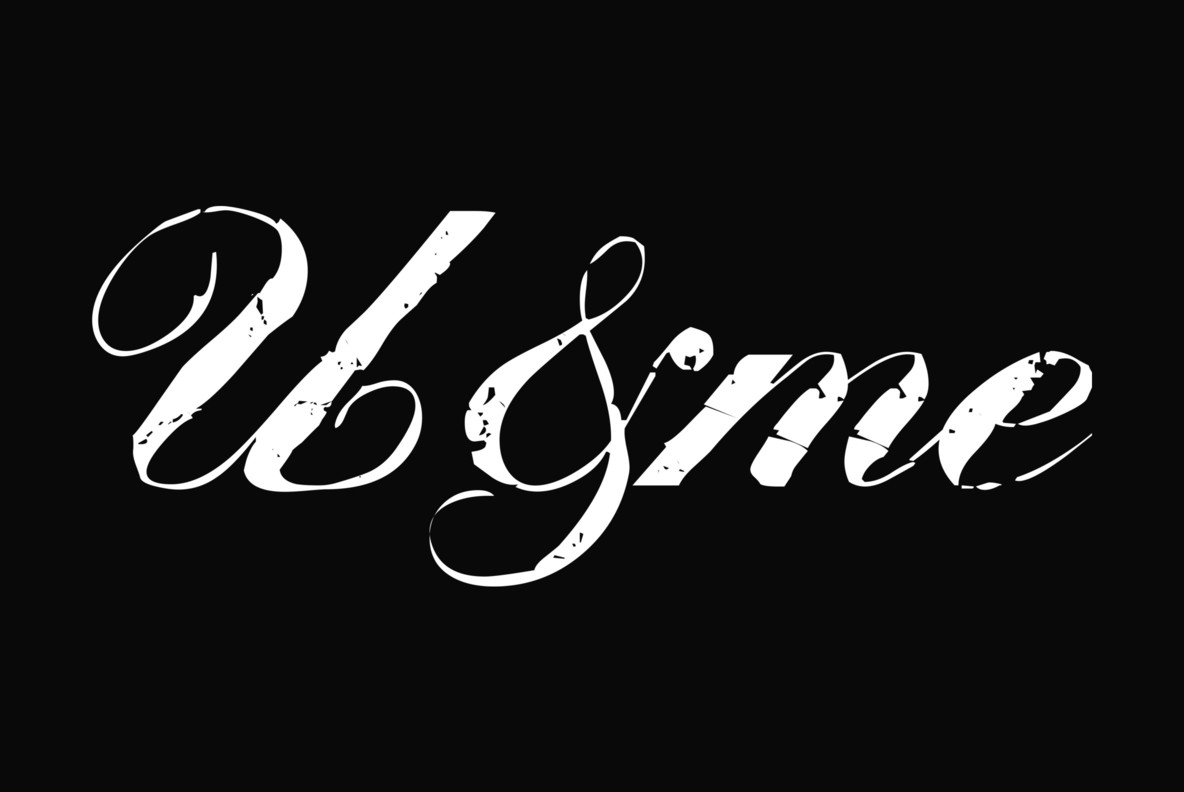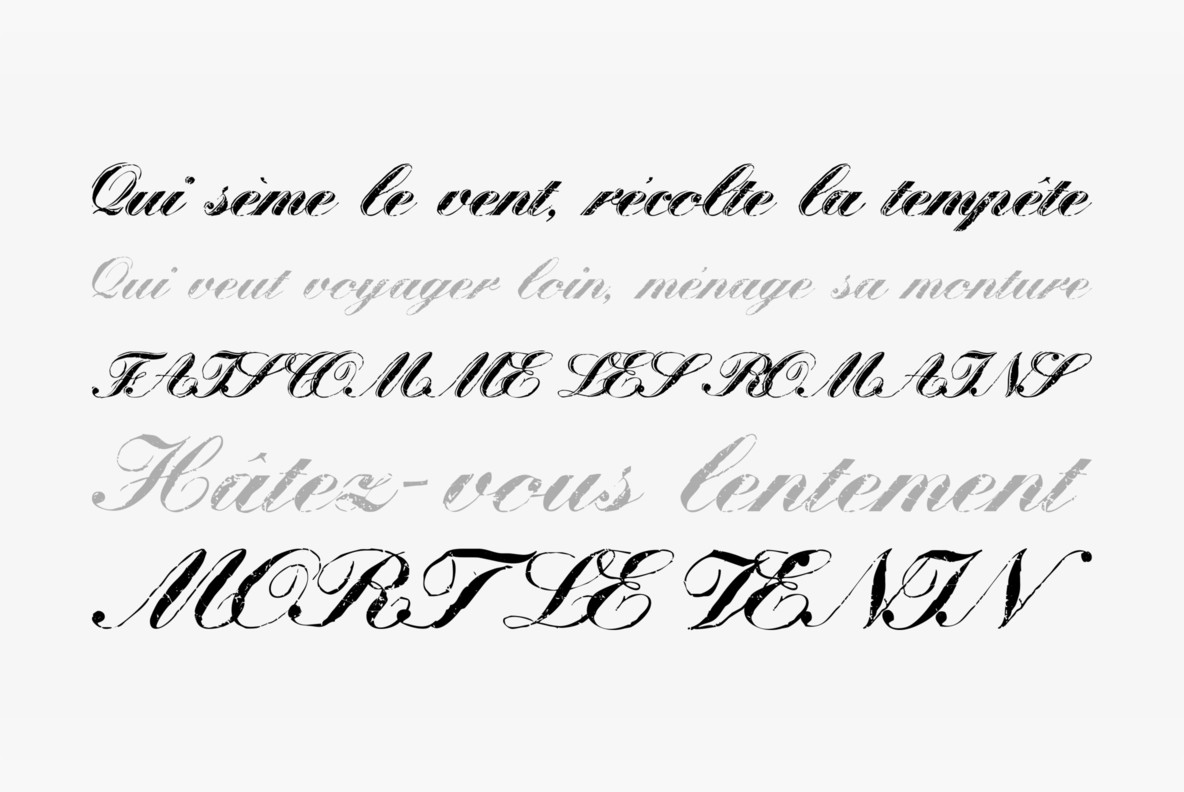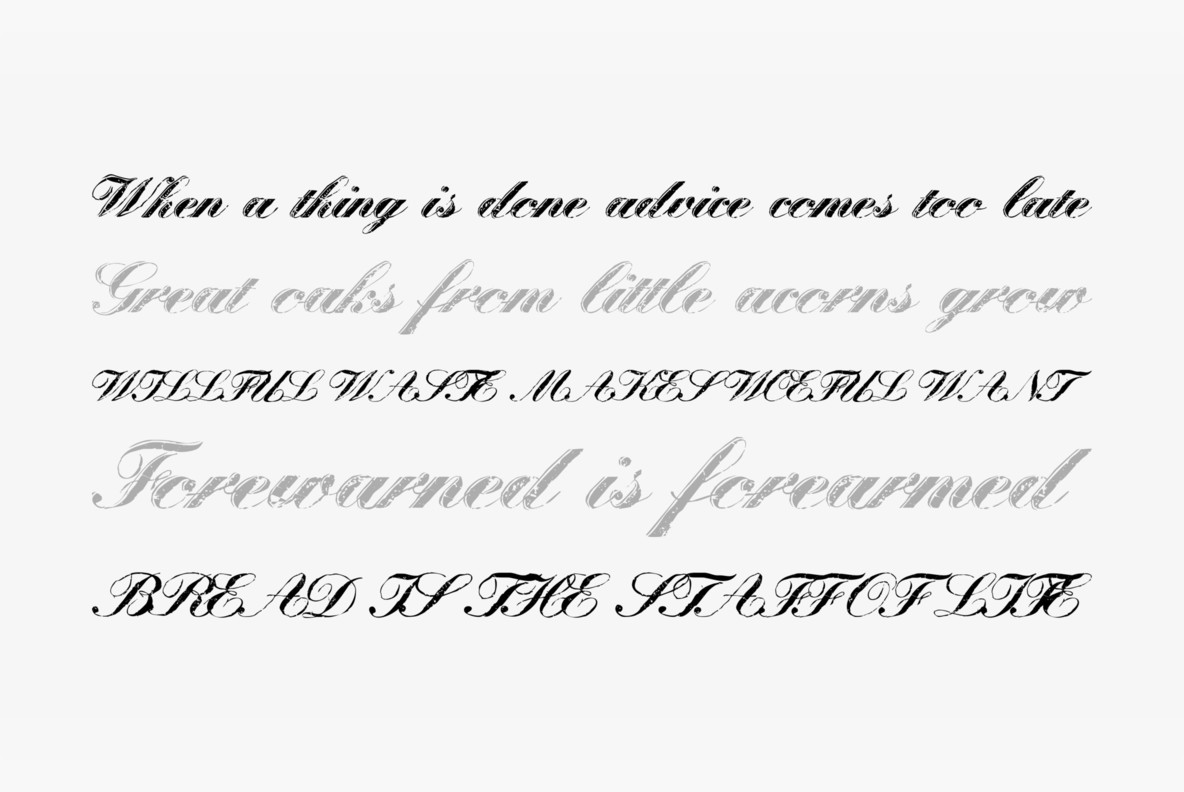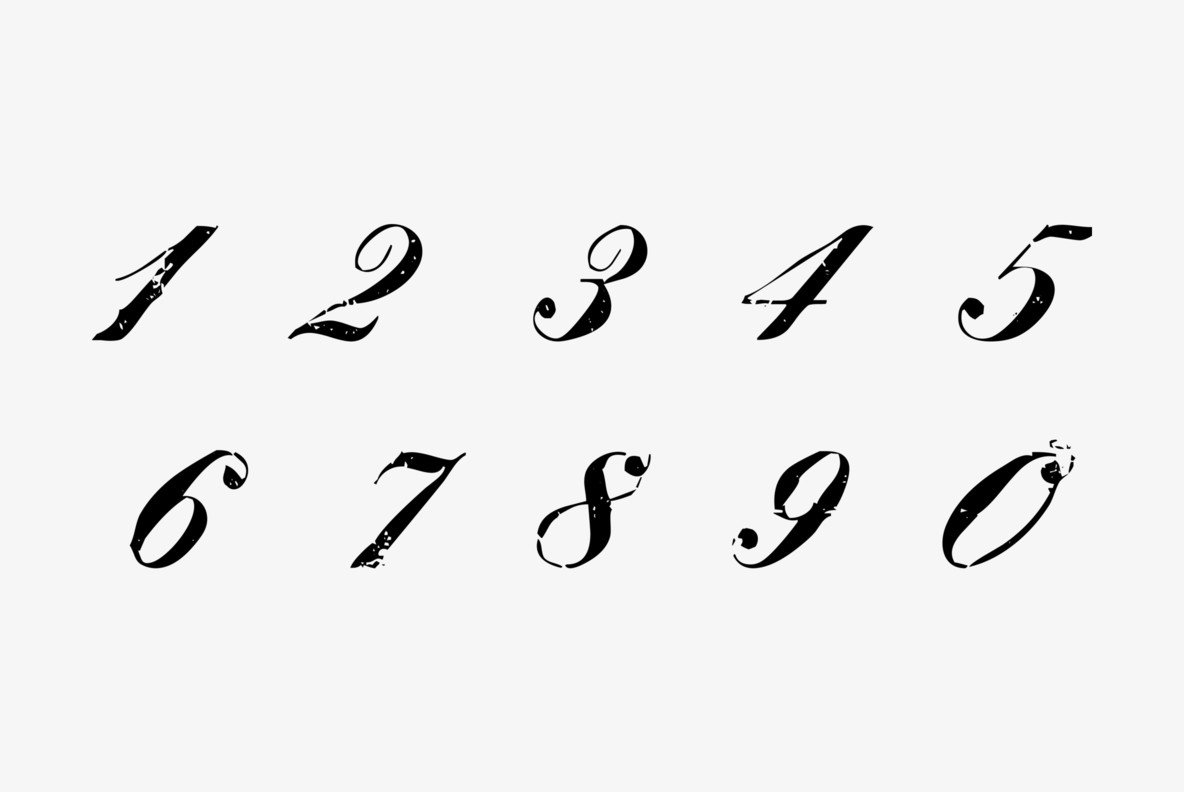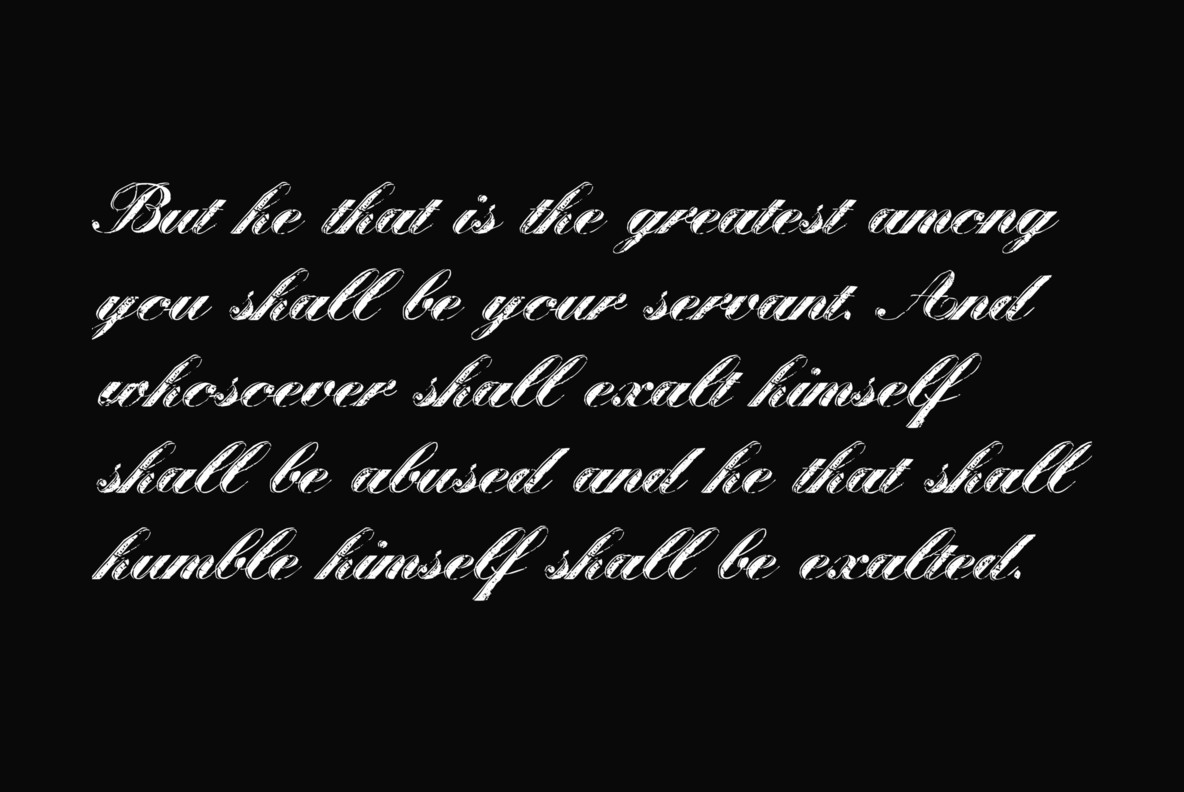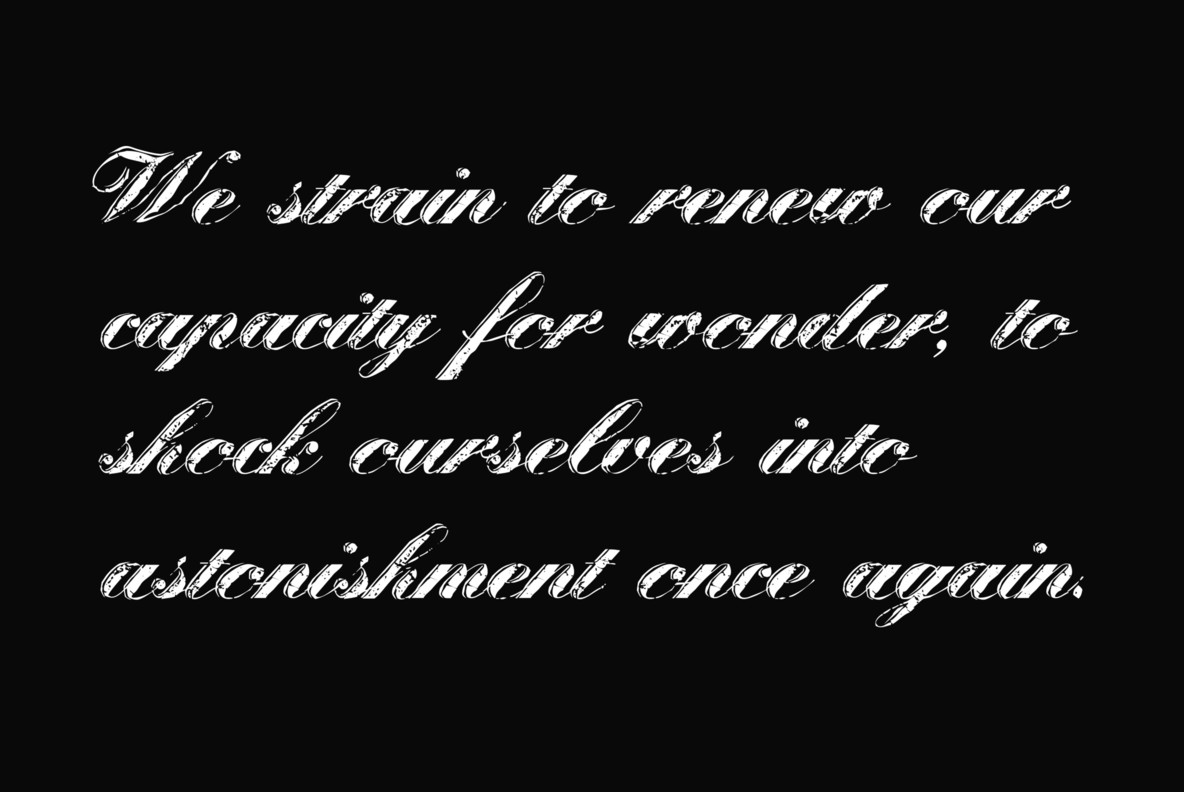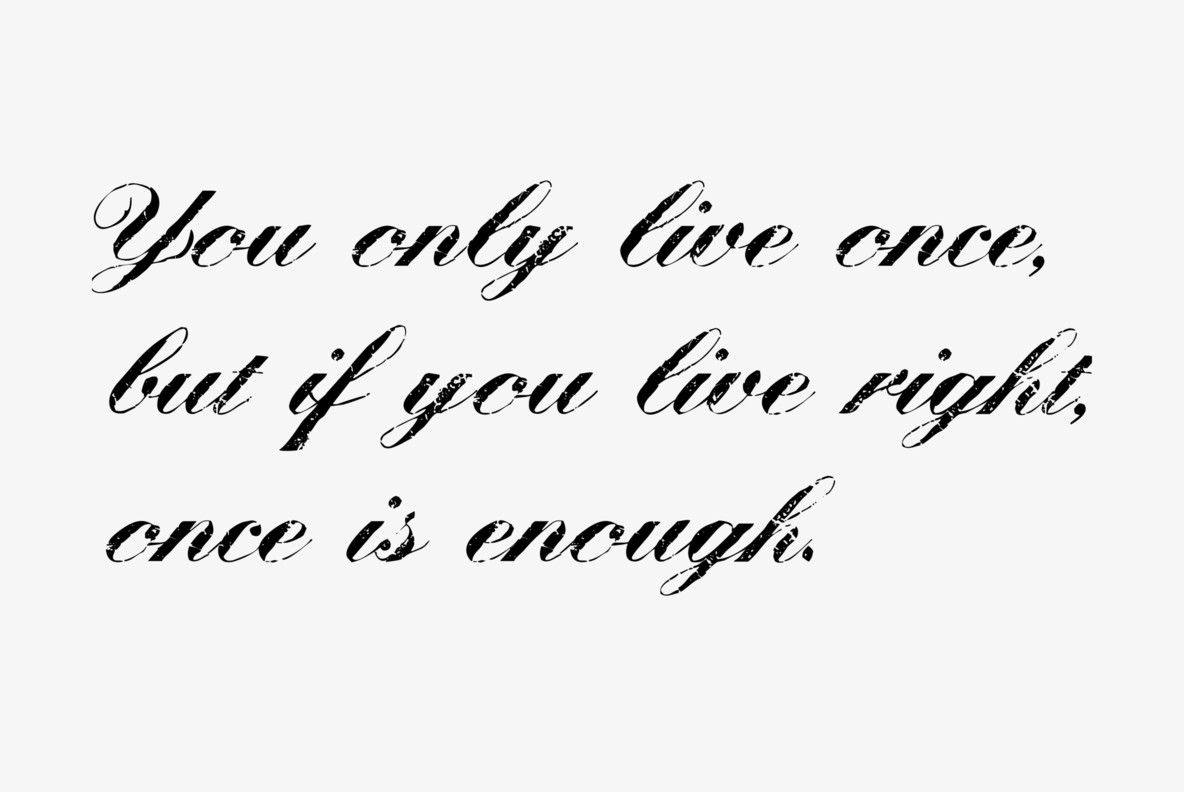
Scriptage Font
"Scriptage" is a very weathered classic English Script, also known under the name of Artists Script, from your weathered type designer Gert Wiescher.